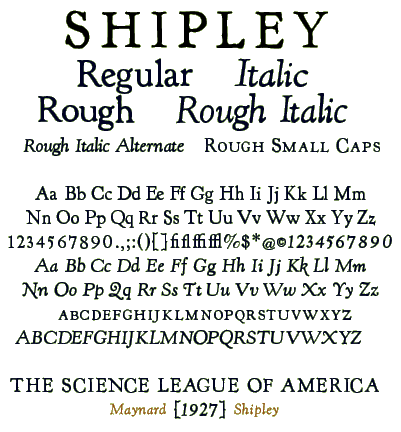
I saw this font in a 1920s pamphlet from The Science League of America that I acquired in Chicago many years ago. I loved the type but couldn't identify it, because it wasn't commercially available anymore. I made my own version based on the pamphlet and named it Shipley, after Maynard Shipley, the president of the Science League who passionately defended science education and the teaching of evolutionary theory. Years later I was finally able to identify the source font as Kennerley, originally designed by Frederic Goudy. I think it's a really beautiful text font. I have several versions: a crisp, clean Roman and Italic, and four rougher weights to capture the feel of old metal type.